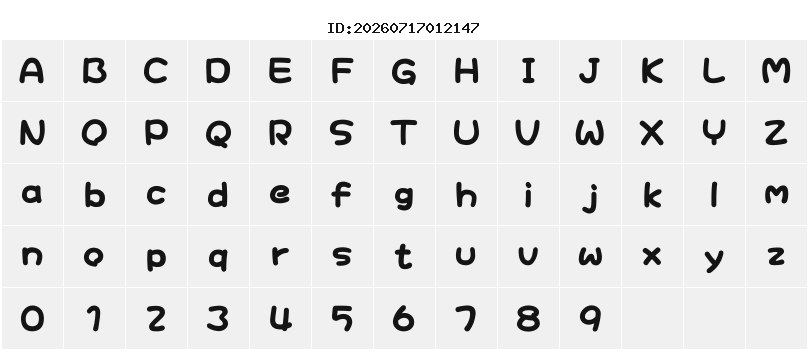
AR TianniuB5 Ultra Preview
• Font Name: AR TianniuB5 Ultra
• Full Font Name: AR TianniuB5 Ultra
• Designer: Arphic Technology Co., Ltd.
• Manufacturer: Arphic Technology Co., Ltd.
About AR TianniuB5 Ultra.ttf
AR TianniuB5 Ultra.ttf is a modern, elegant sans-serif font designed for ultimate readability and visual harmony. Perfect for branding, headlines, web design, and print materials.